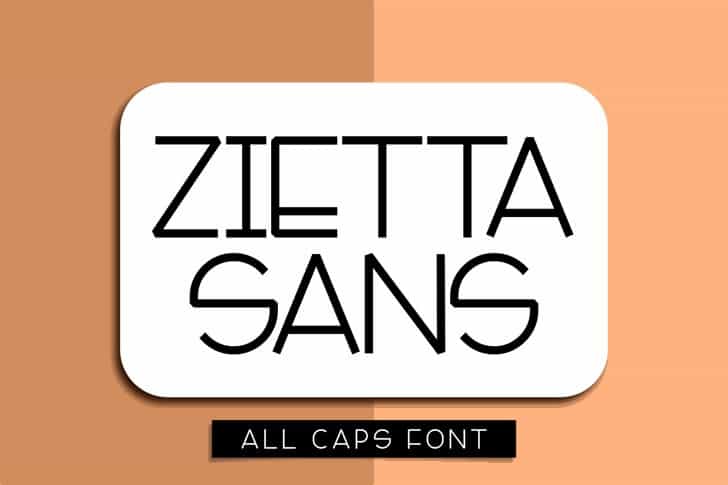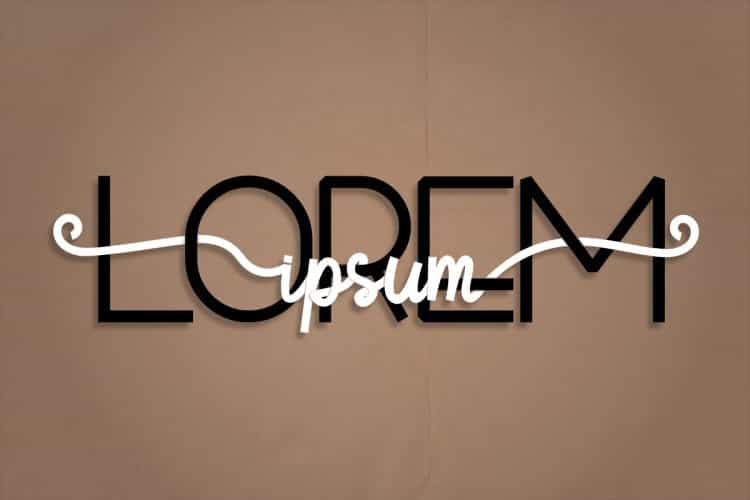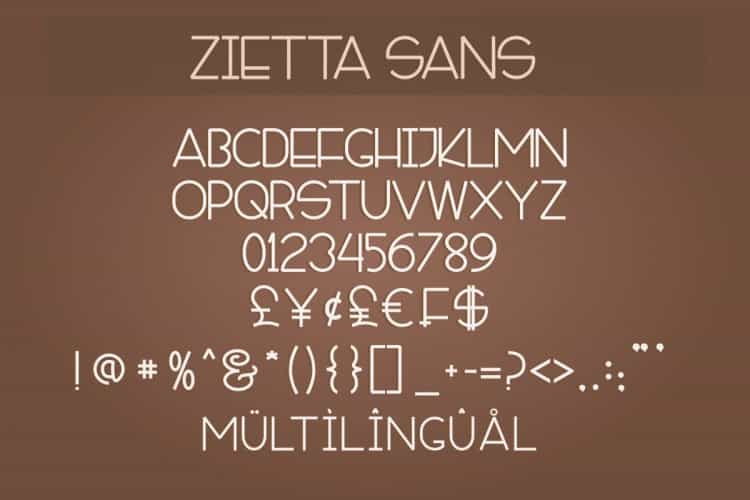
Zietta Sans is a sans serif retro font family with a duo font, which is called Zietta Sans Font. A stylish font that has a cutting edge look and has very distinctive shapes for logos, magazines, wedding invitation, quotes, advertisements, posters, holiday cards and many others.